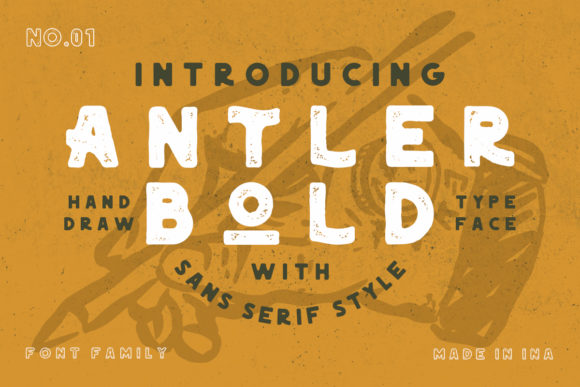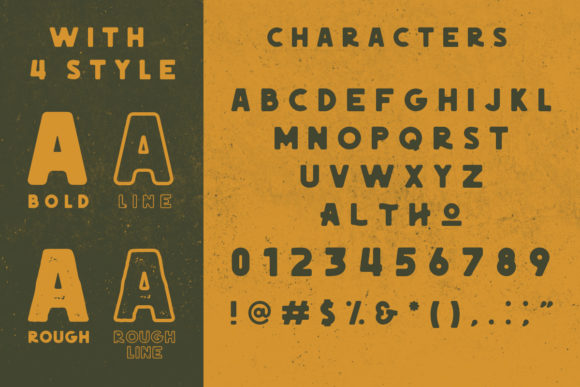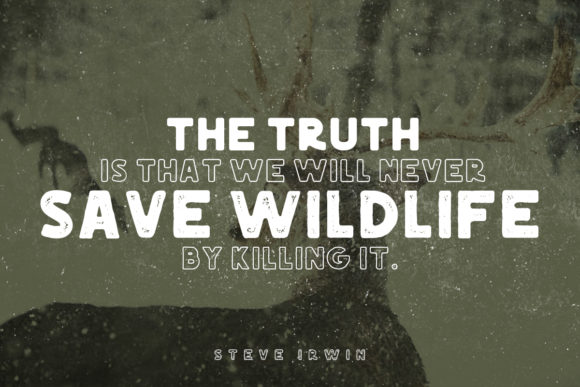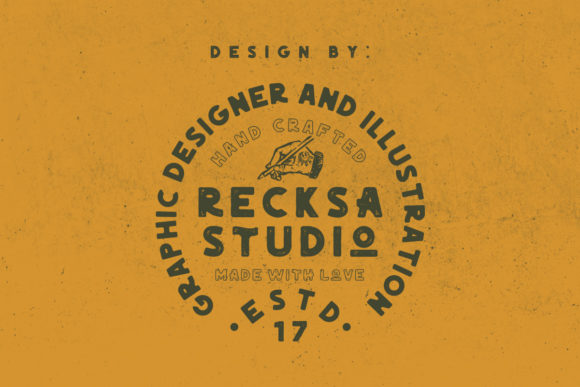
About Antler Bold Font
Antler Bold is a classic sans serif font that aches nostalgia. It features stunning alternates and comes in four distinct styles.